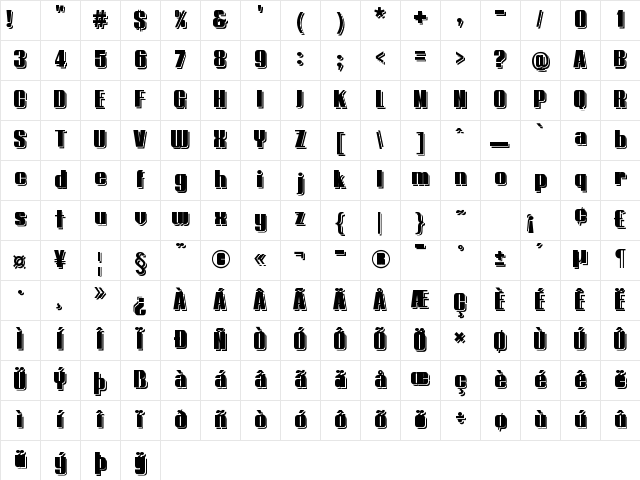
Typoline Demi Shadow Regular Free Font
Typoline Demi Shadow Regular
Design Context for Typoline Demi Shadow
Typoline Demi Shadow is built around its visual character rather than neutral utility - its distinctive forms are designed to make an impression at display sizes.
Font Pairing: Pair with a clean neutral sans-serif for body copy to let Typoline Demi Shadow's character lead without overwhelming the composition.
Pro Tip: Use Typoline Demi Shadow exclusively at display sizes - it was designed to be seen, not read at length. Let a neutral companion handle body copy.